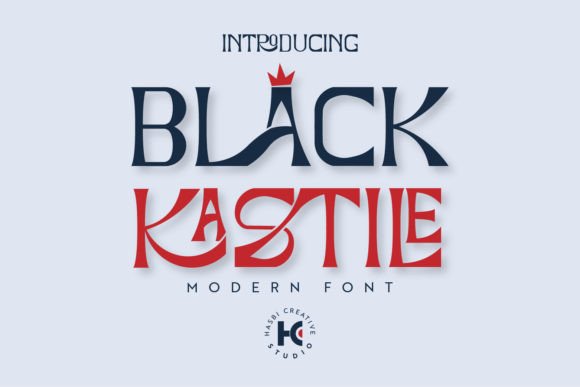
Unlocking Creative Potential with Black Kastile Modern Font
Have you ever been in the middle of a design project, and suddenly, the font you’ve been using just doesn’t cut it? You’re not alone! I recall working on a branding project for a fashion label, and my go-to font just wasn’t giving me the sleek, modern vibe I needed. That’s when I stumbled upon the Black Kastile Modern Font. It was love at first sight! ✨
An Honest Review of Black Kastile Modern Font
- ✅ All-Capital Elegance: This font is perfect for making a statement. Its all-capital design gives it a commanding presence, ideal for headings, titles, and logotypes.
- ✅ Versatility: Whether you’re designing flyers, greeting cards, product packaging, or book covers, Black Kastile fits right in.
- ✅ Ligatures, Numerals, and Punctuations: It supports advanced typographic features, making your designs more sophisticated and polished.
While Black Kastile Modern Font is incredibly versatile, there are a few things to keep in mind: ⚠️
- ⚠️ All-Capital Design: This might be a limitation if you’re looking for a font with both uppercase and lowercase letters. However, if you’re focusing on titles or headings, this isn’t an issue.
The Backstory of Black Kastile Modern Font
The Black Kastile Modern Font was designed with the modern designer in mind. Its creator aimed to craft a font that was both sleek and powerful, capable of making a statement in any design project. Inspired by the elegance of modern typography, Black Kastile brings a touch of sophistication to any project.
| Q: Is Black Kastile suitable for body text? | A: While Black Kastile is stunning for headings and titles, its all-capital design might not be ideal for extensive body text. It’s best used for emphasis and titles. |
| Q: Does Black Kastile support OpenType features? | A: Yes, Black Kastile supports OpenType features, including ligatures, numerals, and punctuations, which can enhance your designs. |
Black Kastile Modern Font is a powerful addition to any designer’s toolkit. Its sleek design, versatility, and support for advanced typographic features make it perfect for a wide range of projects. Whether you’re a seasoned designer or a creative hobbyist, Black Kastile can help elevate your designs to the next level.